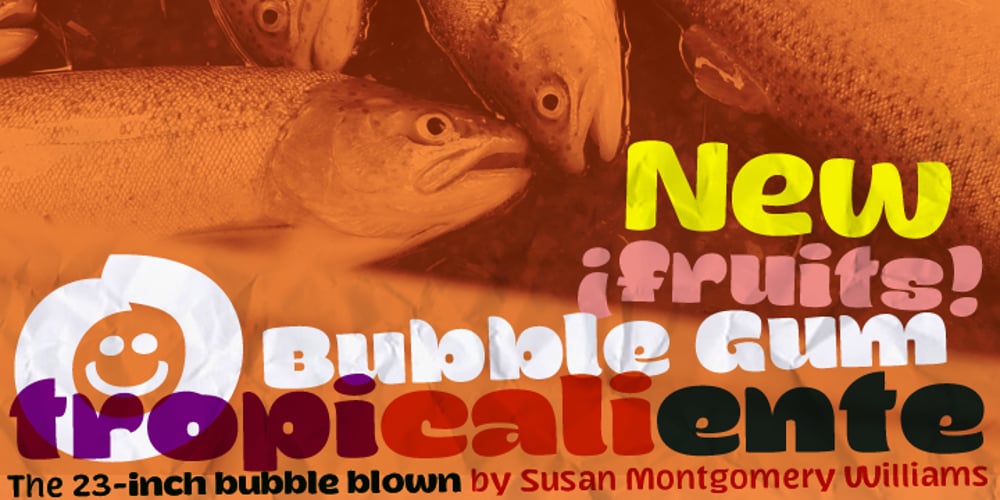
Magola Font Family was designed by Carlos Fabián Camargo Guerrero and published by Andinistas. Magola contains 3 styles and family package options. Magola is a creamy flavor font family whose purpose is to season with emotions the reading of words and phrases formed by puffy glyphs coated with a caramel of empty spaces external and internal. Independently or in groups, members of the family serve to decorate and organize packaging or advertising material in letters apparently crafted for food or entertainment contexts. Its starting point was to draw letters like a ballon fish evolved into a black version with empty areas and microscopic contrasted with colorful inflated and filled areas. Then the challenge was based on the sum transferred between full and empty into a lighter caliber. In that vein, its overall design adapted skeletons of italics and Roman calligraphy. Therefore, its regular, bold and black files have great height “x” with upwards and downwards extremely short and large internal counterblocks to facilitate reading. In this regard, to strengthen its objective and capture the reader’s attention, its kind of contrast and simulated auctions flat tip brush strokes, and amount of contrast between thick and thin in the black version is slightly inverted. Its sizes, smooth strokes and irregular lines reinforce its traditional spirit, so it is favorable to shine the information on posters or large-format media. In short, its optical conformation based on a non-literal way, in metrics similar in all family members to be easily exchanged without changing the ìxî height. It is therefore a striking and versatile tool, that besides being useful in large sizes, can be used in small sizes as well. And more importantly, its general concept is more profitable when its members are mixed to nest headings, subheadings and short paragraphs, designed according to size, position, color and location in logos, covers, posters, ads and flyers.